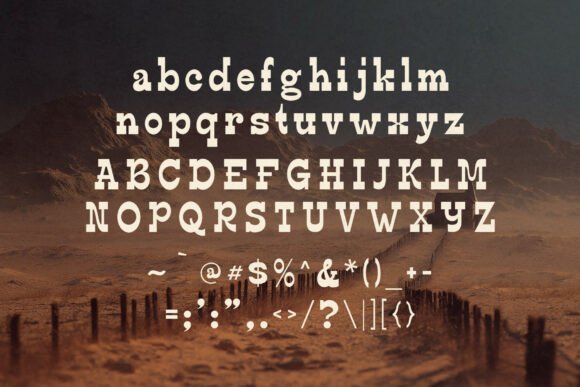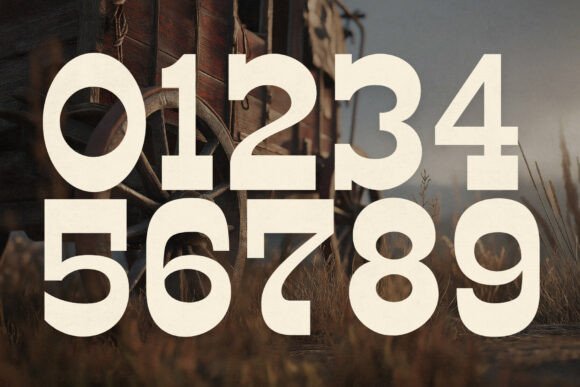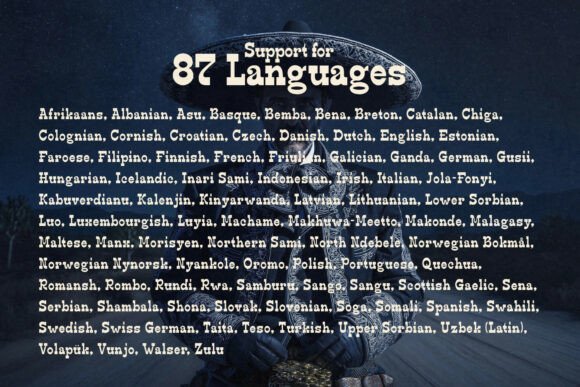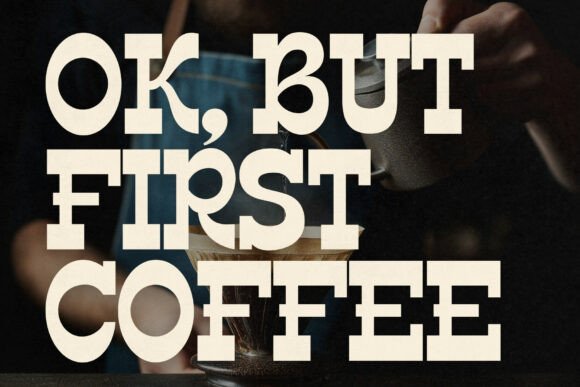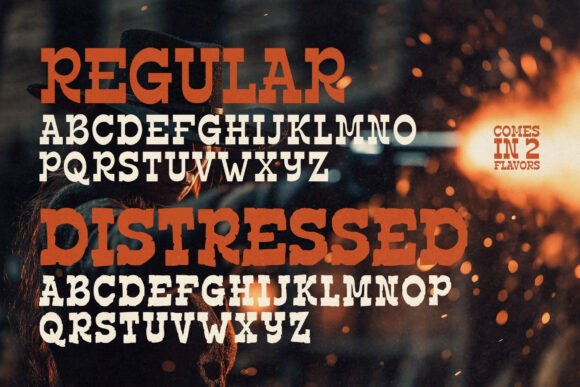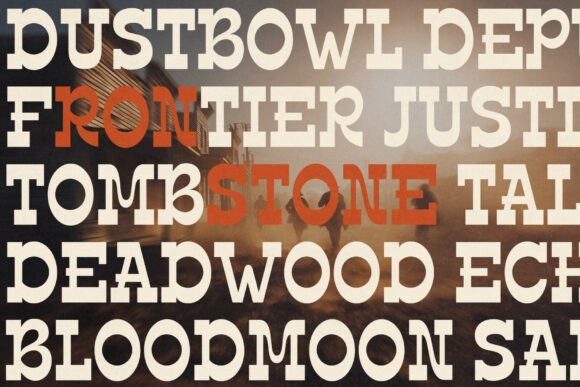
Unleash the Spirit of the Wild West with the Buffalo Range Font
Imagine yourself sipping whiskey in a dusty saloon, surrounded by the echoes of a bygone era. The dim light flickers above, casting a warm glow on the wooden walls, as the bartender polishes a glass with a worn leather rag. Suddenly, a wanted poster catches your eye – the bold, rugged letters jumping out like a wild mustang. This is the kind of visual storytelling that the Buffalo Range Font embodies.
This powerful slab serif typeface is designed to evoke the untamed spirit of the American frontier. With its 326 meticulously crafted glyphs and support for 87 languages, it’s the perfect tool for designers looking to add a touch of rugged authenticity to their work. Whether you’re branding a Western movie, crafting vintage-style packaging, or simply looking to add some grit to your design, the Buffalo Range Font is a valuable addition to your toolkit.
Buffalo Range Font Key Features
- Font Style: A serif font with a rustic, vintage feel, ideal for use in publications and branding related to the American West.
- Unique Characteristics: Features a distinctive, hand-drawn look with subtle imperfections, giving it a unique and authentic feel.
Designer Review: Buffalo Range Font
Overall, I think the Buffalo Range Font has a unique charm to it. It’s a serif font with a rustic feel, which could be perfect for designs that need a touch of country or vintage vibe.
What Works Well: ✨
- Unique character shapes: Each letter has a distinct personality, which adds to the font’s character.
- Consistent spacing: The font has well-balanced letter spacing, making it easy to read.
- High legibility: Despite its unique style, the font is still easy to read, even at smaller sizes.
- Limited versatility: While the font is great for certain designs, it may not be the best choice for more modern or sleek projects.
- Lack of bold weights: The font only comes in regular and italic weights, which may limit its use in headings or titles.
- Some letterforms may be difficult to read: Certain letters, such as ‘a’ and ‘c’, may be easily confused with each other.
Overall, I think the Buffalo Range Font is a great choice for designers who need a unique and rustic font. While it may have some limitations, its charm and character make it a worthwhile addition to any design library.
Use the Buffalo Range Font for titles, headings, and emphasis. It’s particularly effective for creating a rustic or vintage feel. Experiment with different font sizes and styles to create visual interest.
The Buffalo Range Font is ideal for:
- Western-themed designs
- Rustic or vintage-inspired designs
- Outdoor or adventure-themed designs
- Wedding or event invitations
Alternatives to Buffalo Range Font
Open Sans is a popular sans-serif font suitable for body text, headings, and titles. It’s highly legible and works well in various digital mediums. Use Open Sans when you need a clean and modern look. Compared to Buffalo Range Font, Open Sans is more minimalist and lacks the rugged feel, but it’s more versatile and suitable for a wider range of applications.
Athelas
Athelas is a serif font inspired by traditional typesetting. It’s ideal for creating a classic, elegant look. Use Athelas when you need a sophisticated and refined aesthetic. Compared to Buffalo Range Font, Athelas is more formal and less rugged, but it shares a similar sense of history and tradition.
Merriweather is a classic serif font suitable for body text, headings, and titles. It’s highly legible and works well in various digital mediums. Use Merriweather when you need a timeless and elegant look. Compared to Buffalo Range Font, Merriweather is more formal and less rustic, but it shares a similar sense of tradition and sophistication.